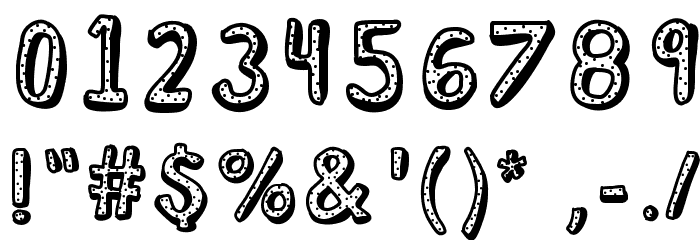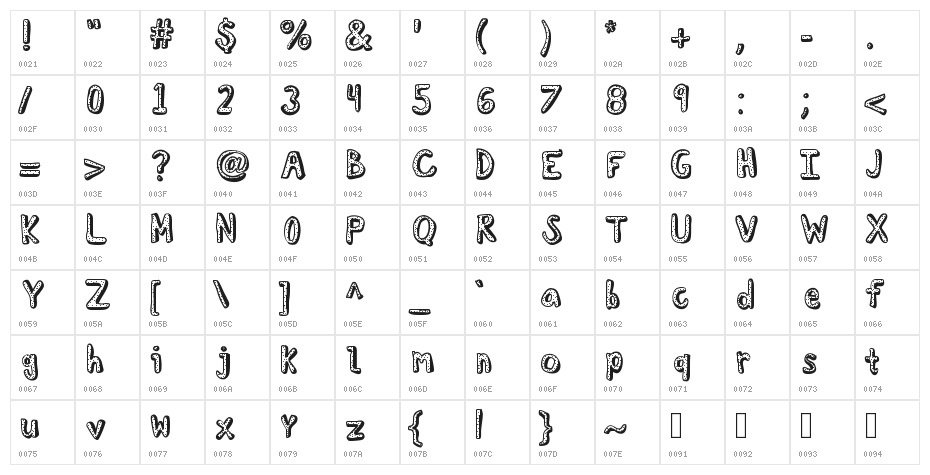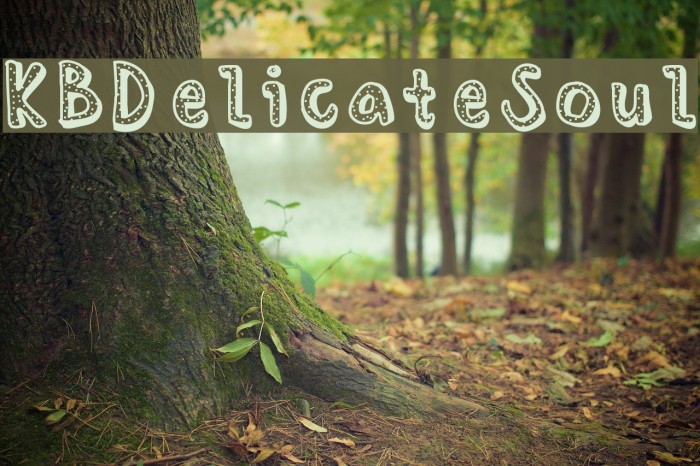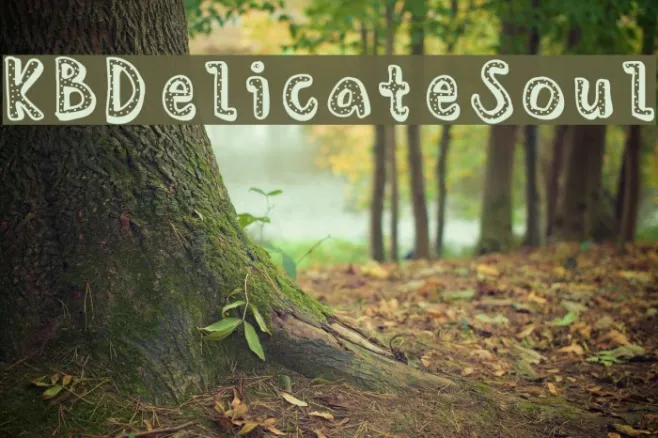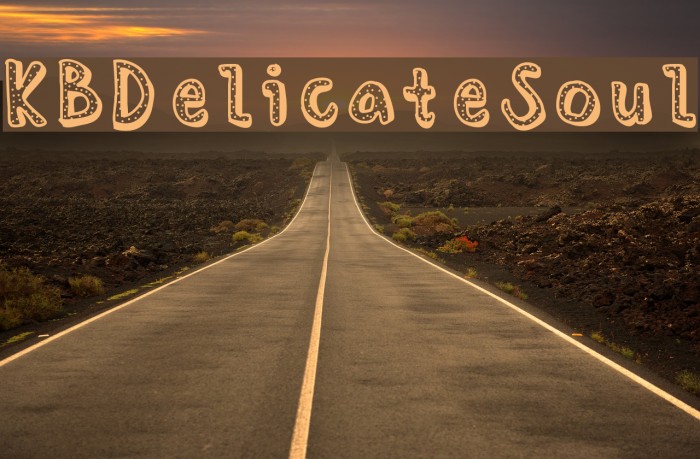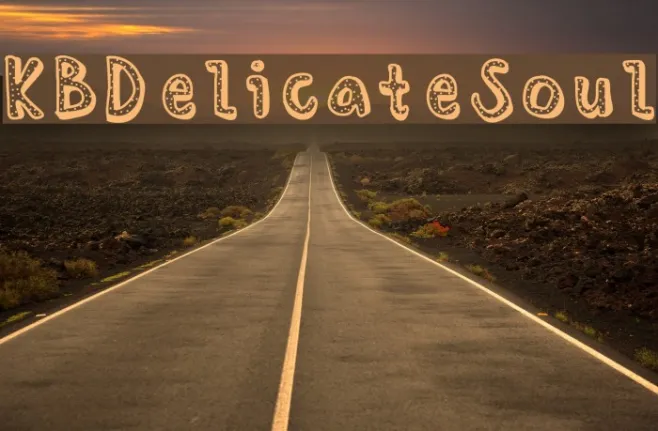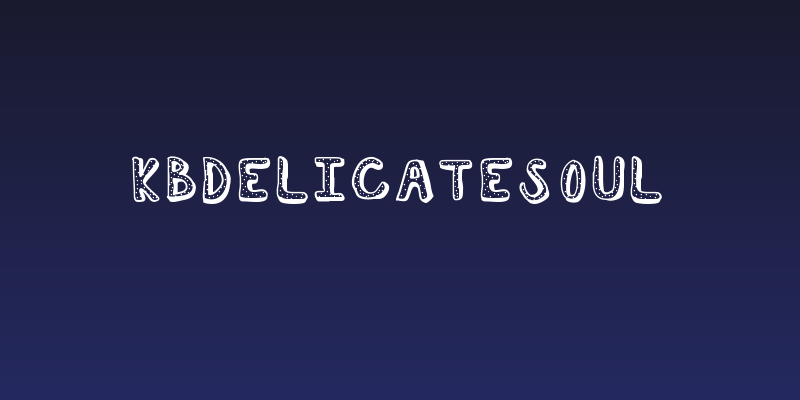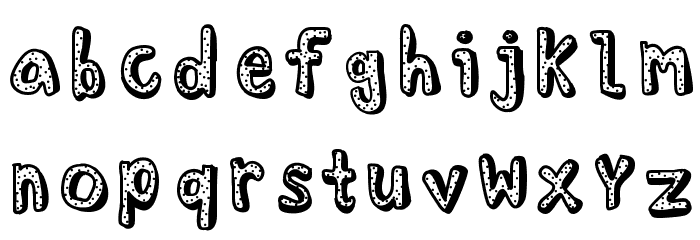
KBDelicateSoul Font
KBDelicateSoul Description
This font features a playful and whimsical design, characterized by its bold, hand-drawn appearance. Each letter is outlined with a dotted pattern, giving it a textured and unique look. The characters are slightly irregular, adding to the casual and informal style. The font includes both uppercase and lowercase letters, numbers, and a variety of special characters, making it versatile for different uses. Its distinct style makes it stand out, ideal for creative projects that require a fun and engaging typeface.
| Overall Style | Whimsical and playful |